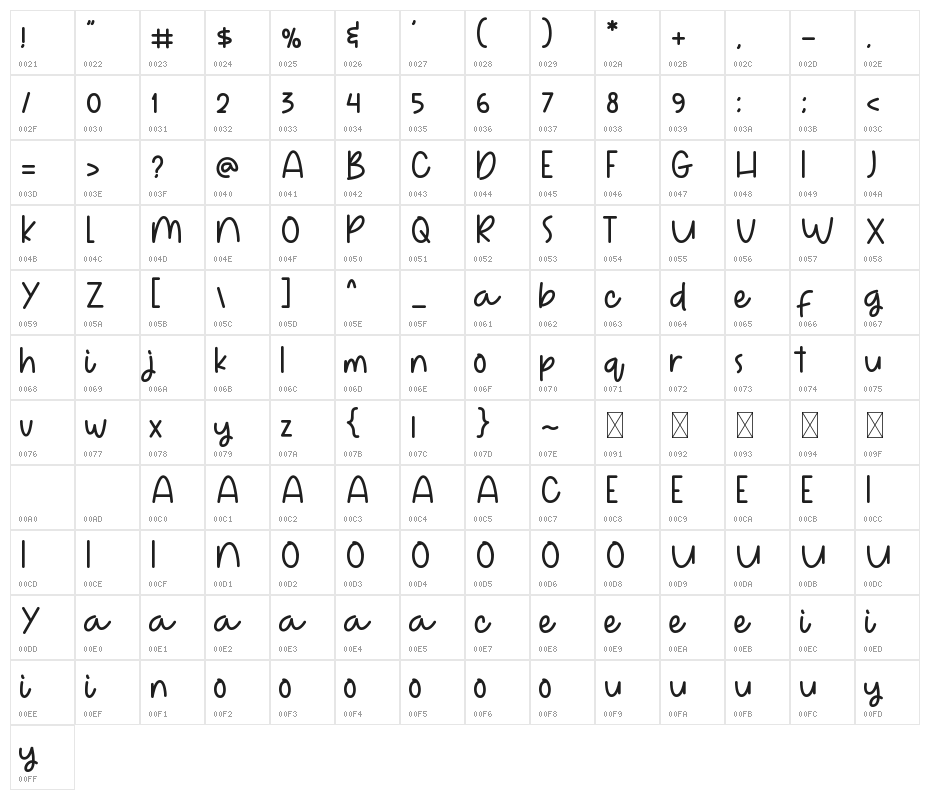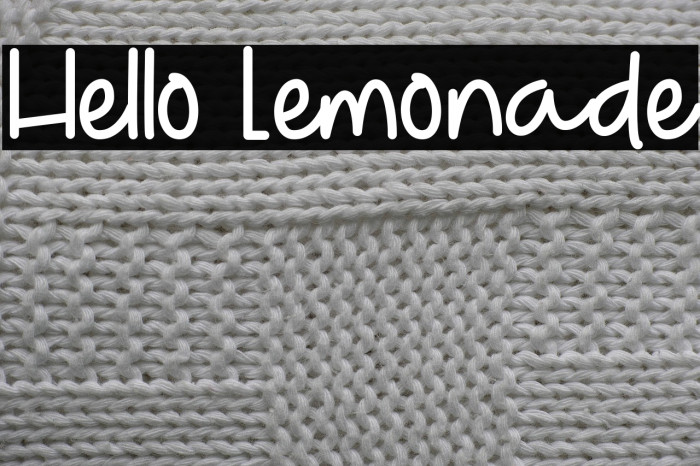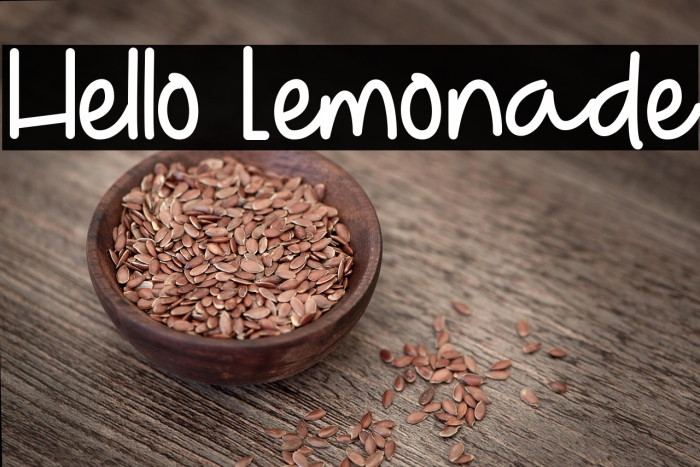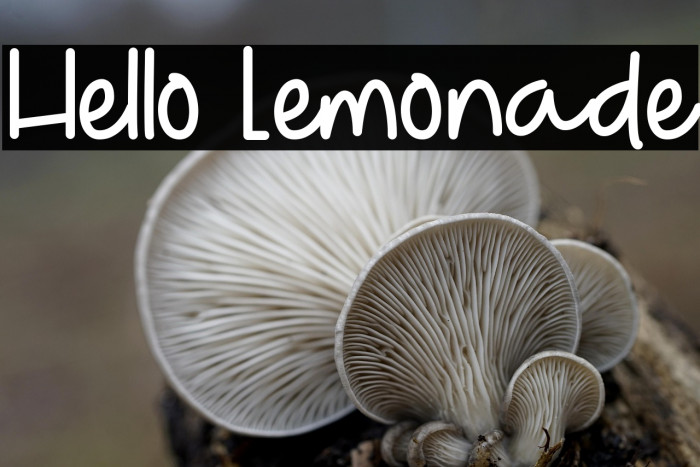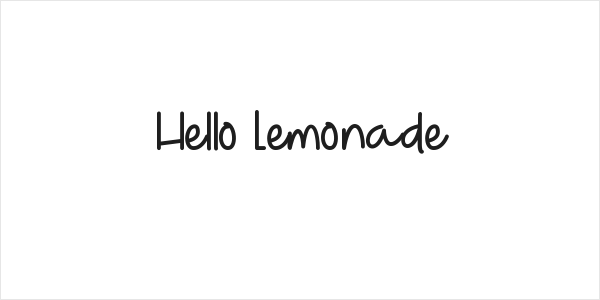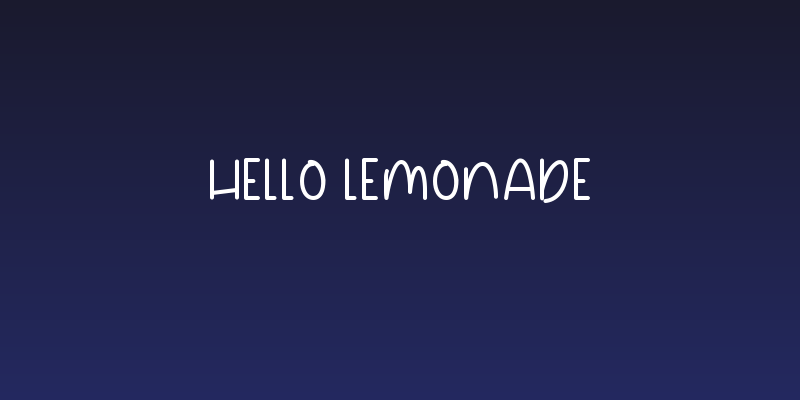
Hello Lemonade Font
Hello Lemonade Description
A playful, handwritten font with a casual and friendly appearance. The letters are rounded and slightly irregular, adding a personal touch.
| Overall Style | Casual, Friendly |
| Use Case | Headlines, Informal text, Branding |
| Proposed Projects | Greeting cards, children's books, casual branding. |